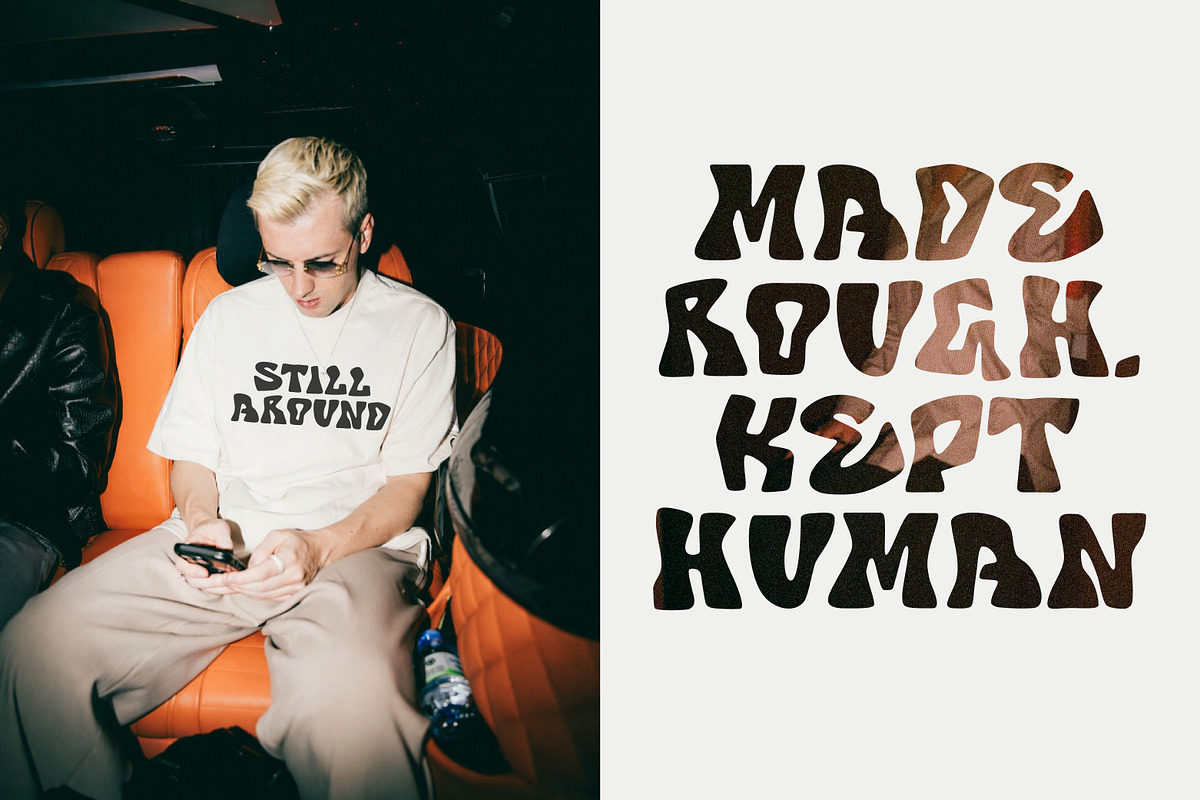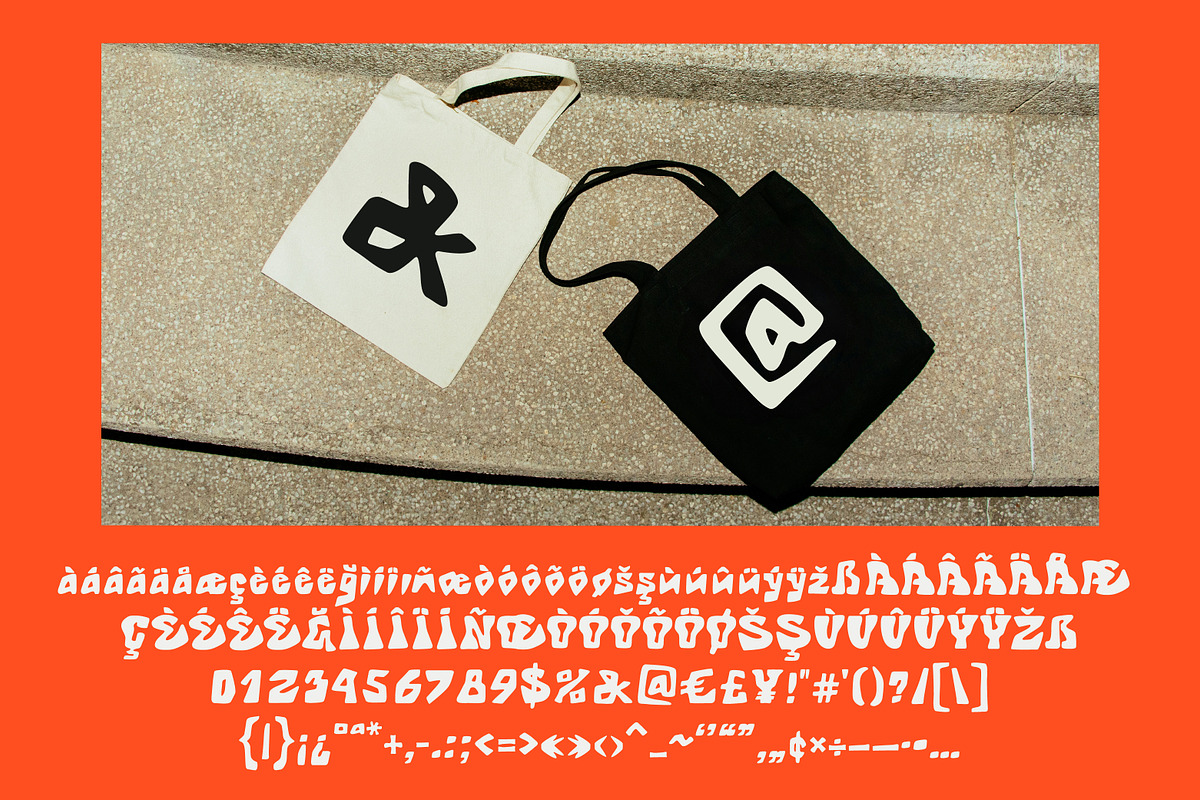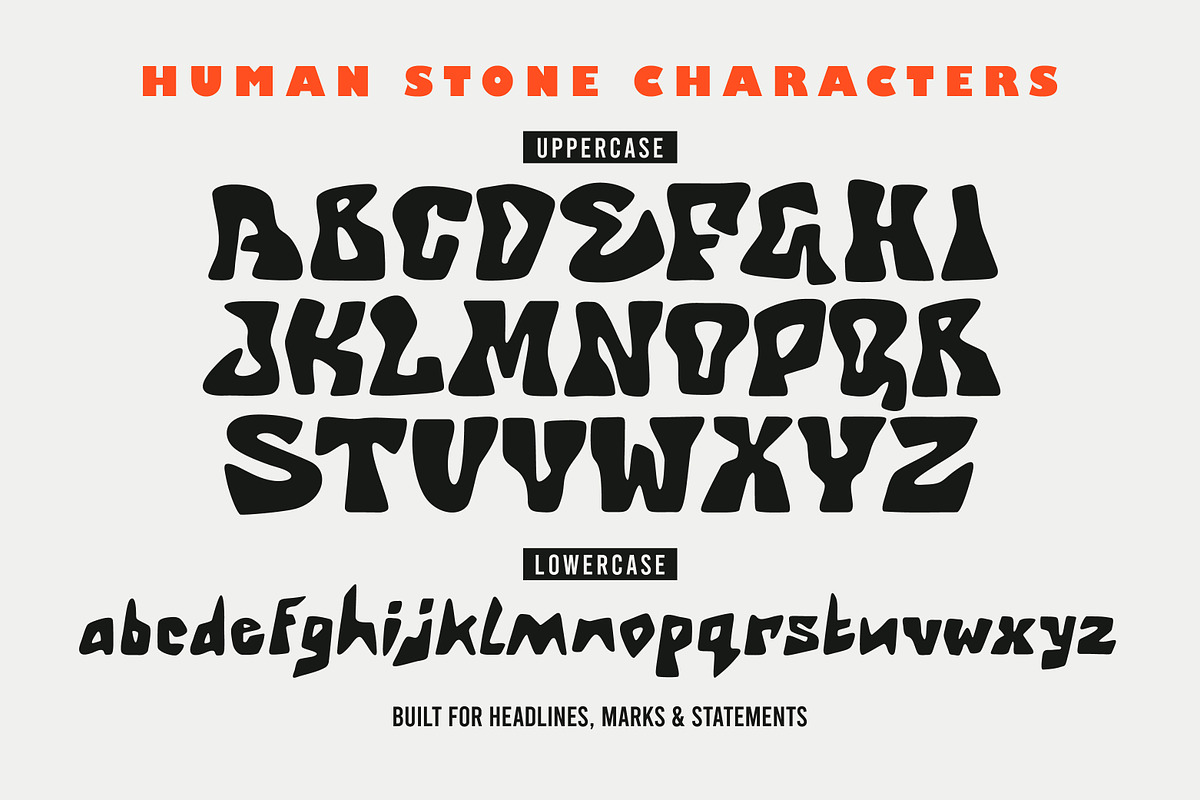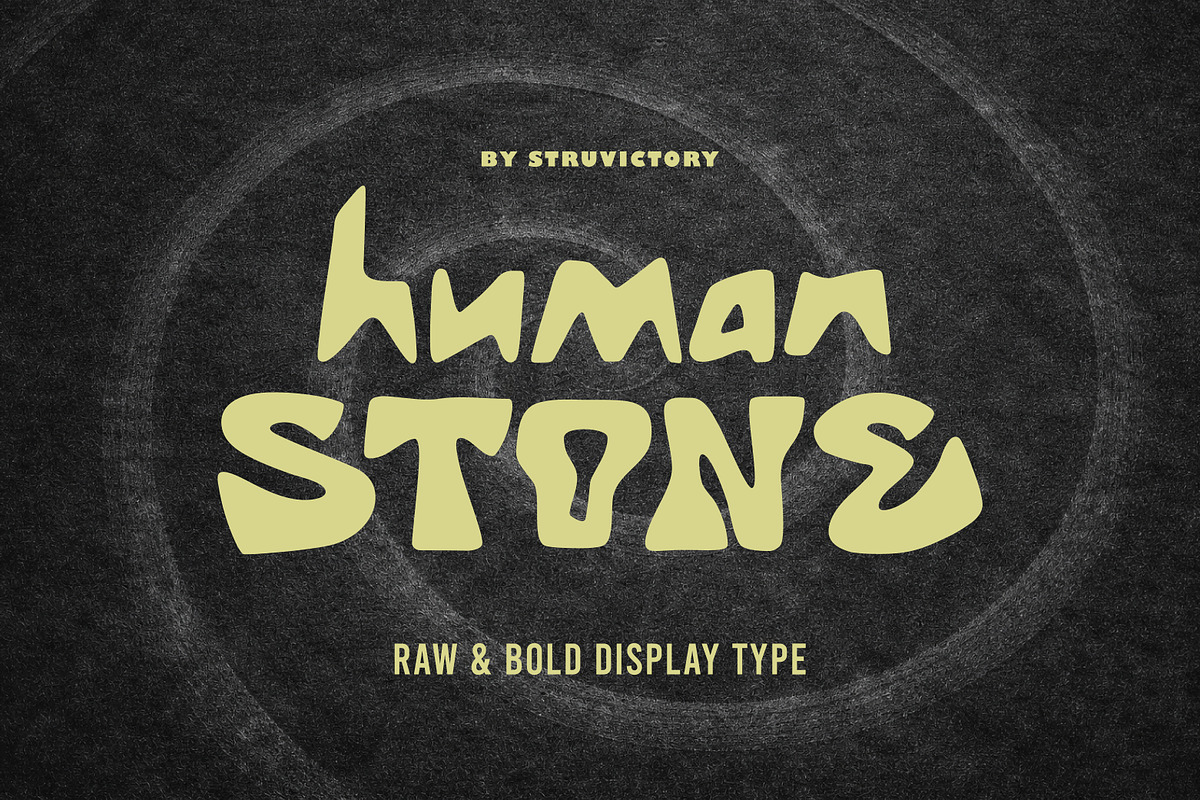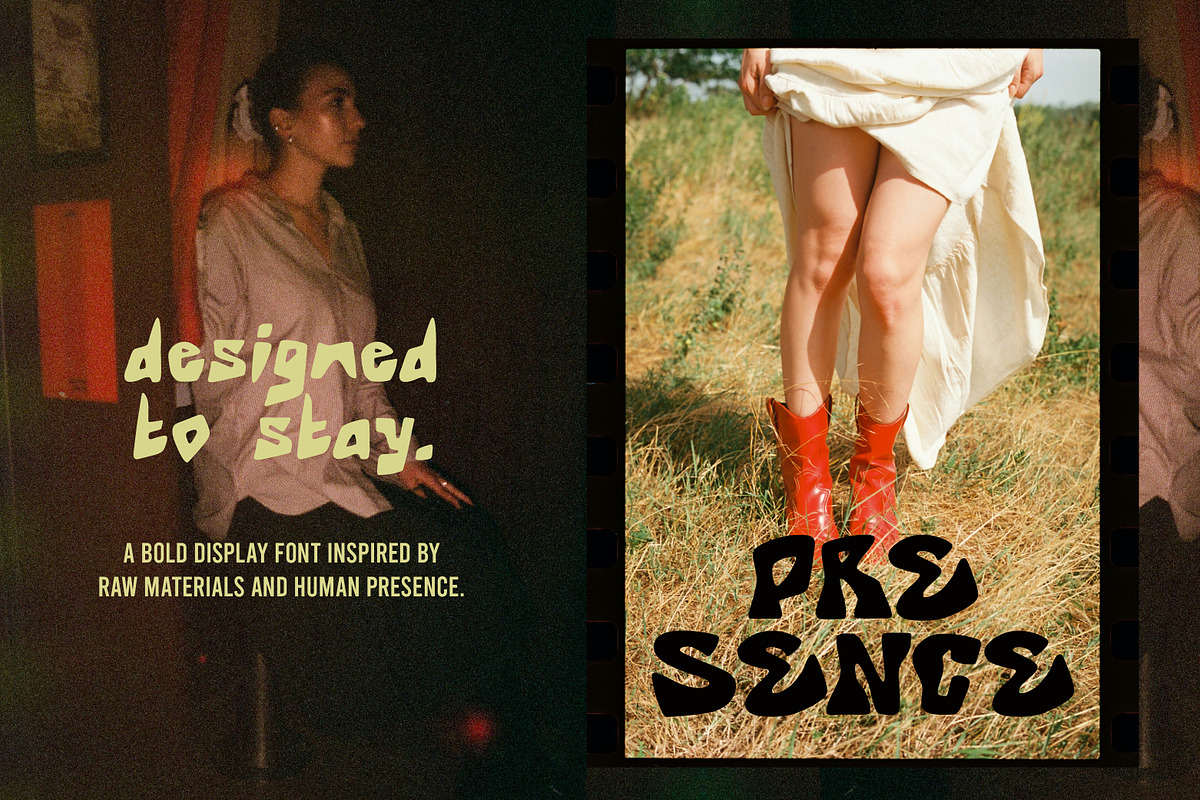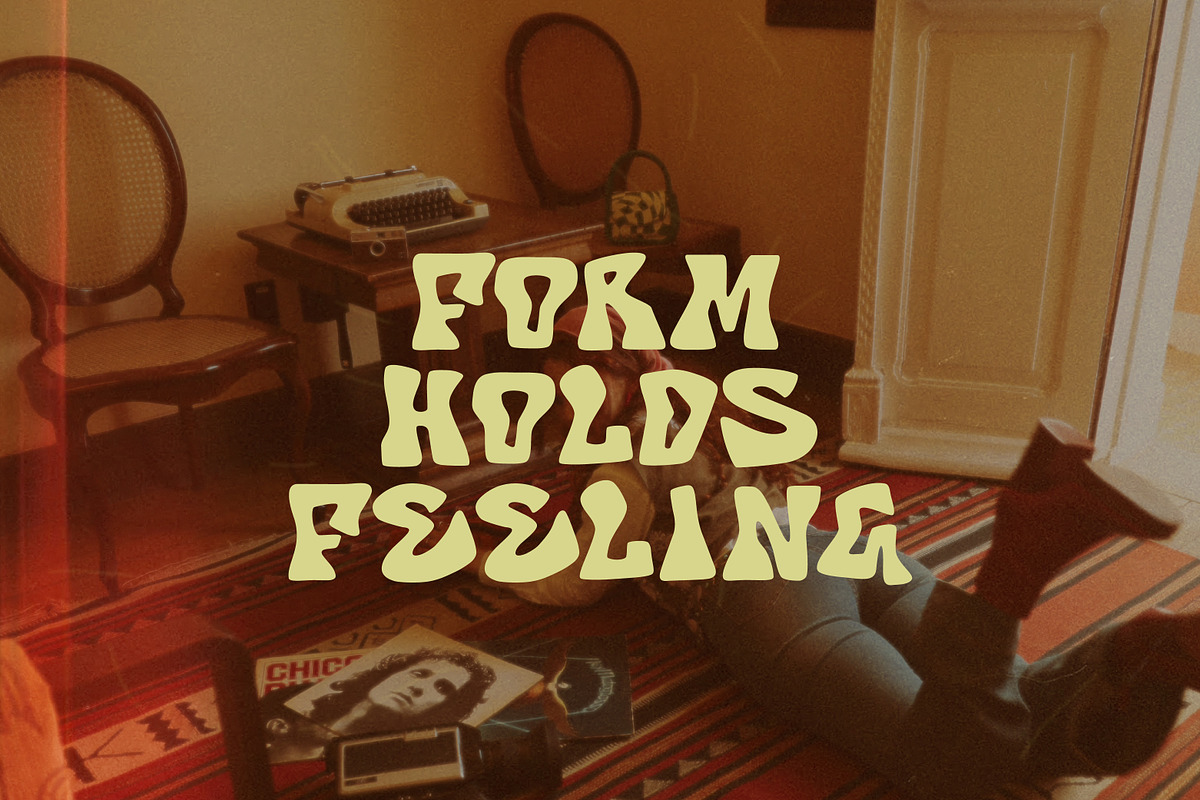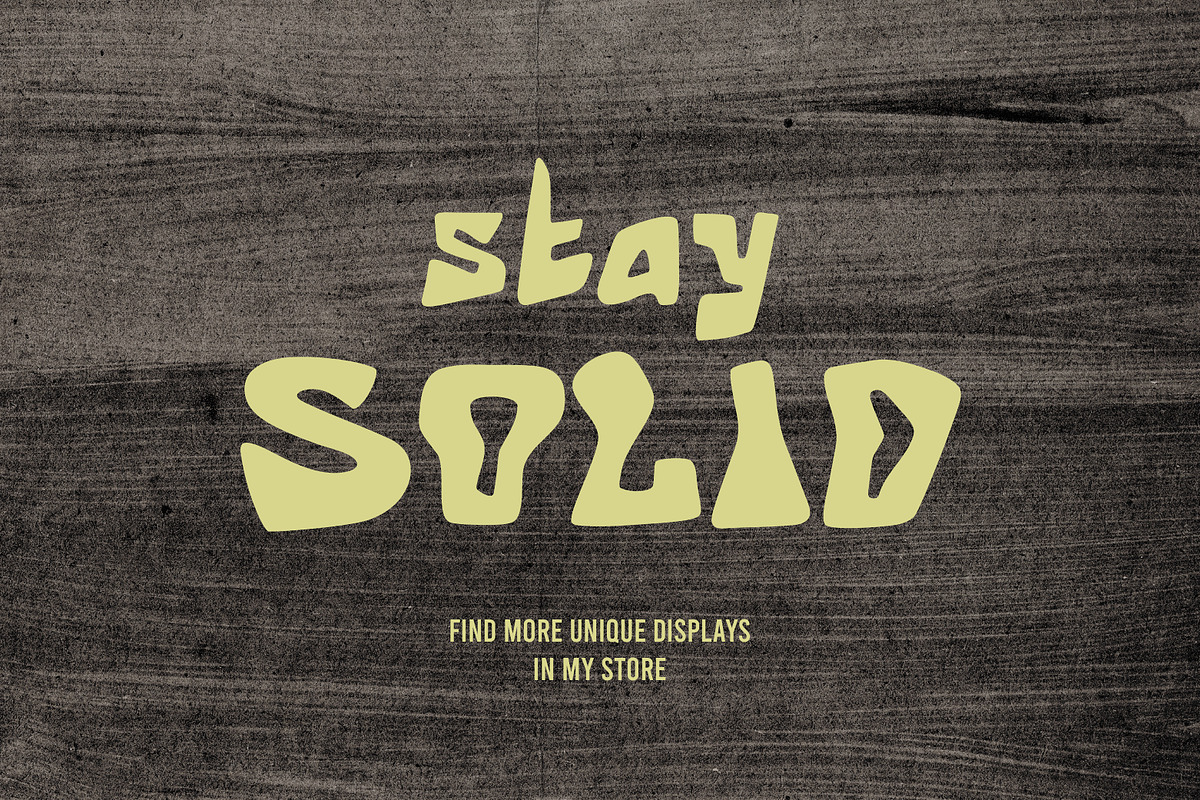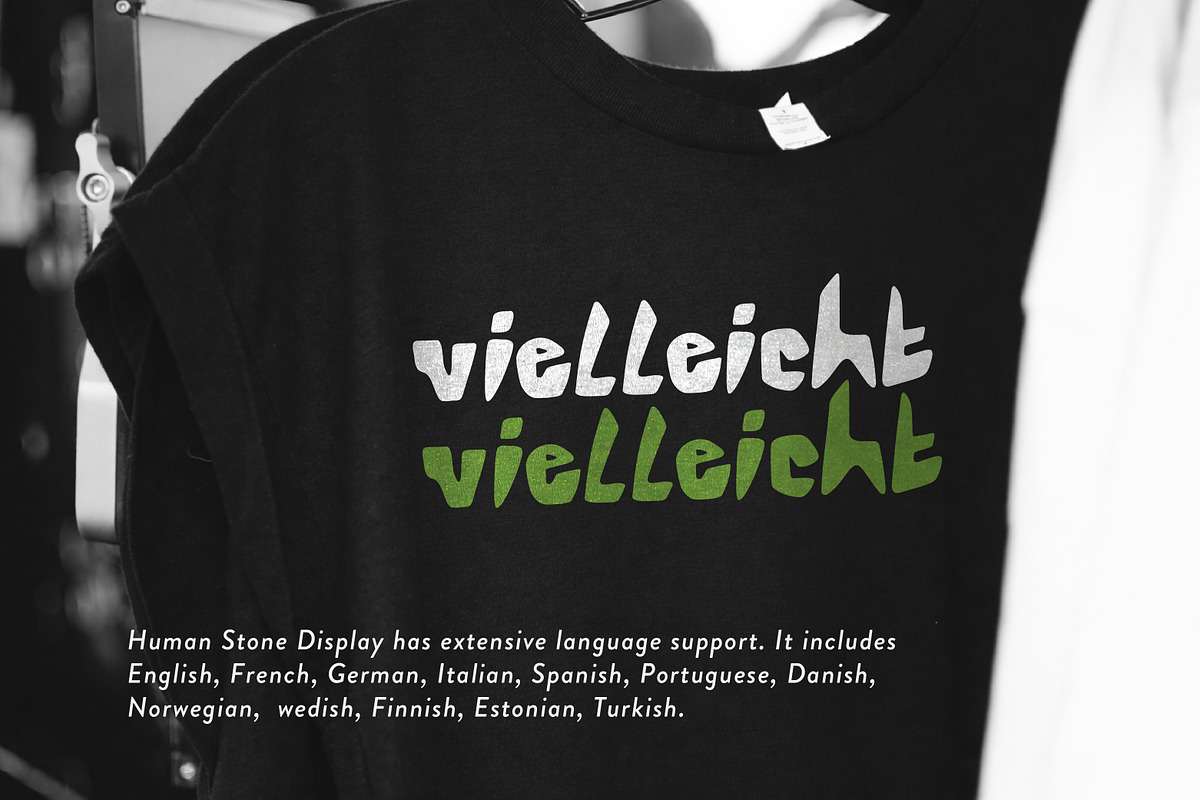
Human Stone Raw Bold Brutal Display
Human Stone is a raw and bold display typeface inspired by imperfect forms, pressure, and human presence. Its shapes feel carved rather than drawn - uneven, heavy, and intentionally rough. Designed for logos, posters, apparel, packaging, album covers, and editorial use, Human Stone works best at large sizes where its texture and character can fully breathe. The font supports uppercase and lowercase letters, numbers, punctuation, and extended Latin language coverage, making it suitable for both expressive branding and experimental layouts.